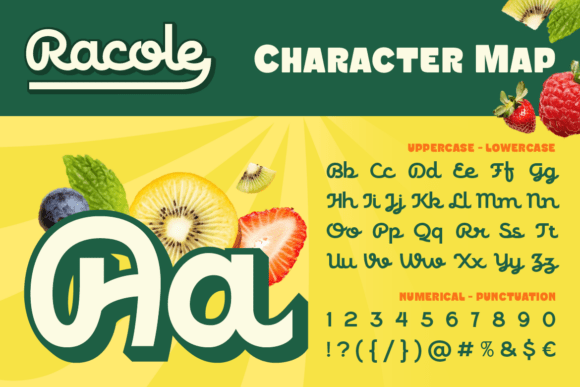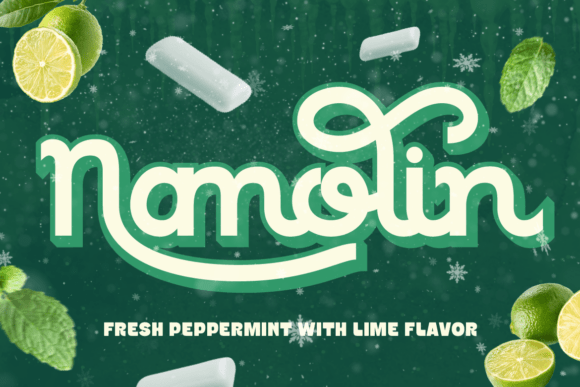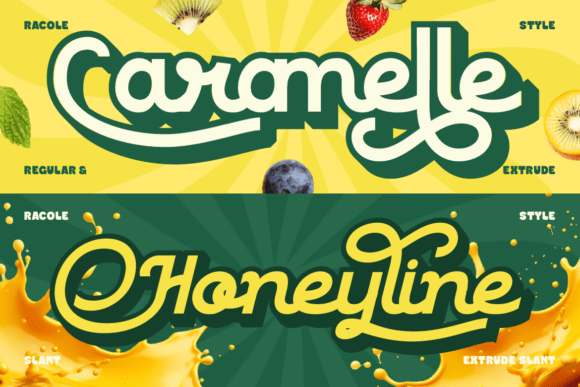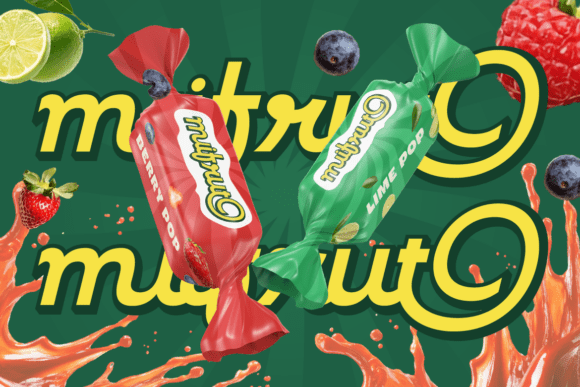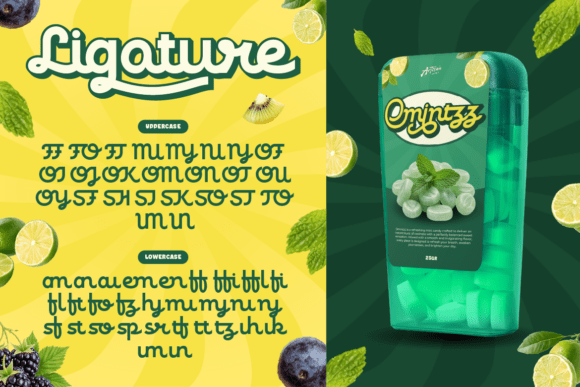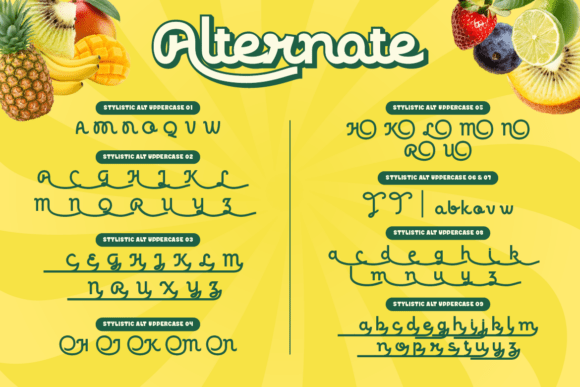
Introduction to Racole Font
Imagine you’re strolling through a vintage candy shop, surrounded by colorful sweets and the sweet scent of fresh fruit. The sound of lively chatter and the clinking of jars fills the air as you browse the aisles, searching for the perfect treat. This is the kind of feeling that the Racole Font embodies – a sense of carefree joy that’s just waiting to be unleashed in your next creative project.
As a designer, you know that finding the right font can make all the difference in bringing your vision to life. And with the Racole Font, you’ll have access to a high-quality, versatile design resource that’s perfect for a wide range of creative projects – from food and beverage branding to social media content and gift cards.
Key Features of Racole Font
- High-quality, professional font design ideal for creative projects and design resources.
- Designed to be highly legible and versatile, suitable for use in various design contexts, from digital to print.
- Includes a comprehensive character set, making it an excellent choice for creative projects and design resources.
Honest Review: Racole Font
I recently stumbled upon the Racole Font, and I must say it’s been a game-changer for my creative projects. The high quality and sleek design make it an excellent addition to any design resource.
One of the standout features of this font is its transparent background, which allows for seamless integration with any image or design element. This makes it a great choice for designers who value versatility and ease of use.
Here are some of the things that work well with the Racole Font:
- ✨ Transparent background for easy integration with other design elements
However, I did encounter a few limitations with this font:
- ⚠️ Limited character set, which may be a concern for designers who need a wide range of characters
- ⚠️ Not suitable for body text, as it can be quite decorative and may be difficult to read at smaller sizes
Overall, I’m impressed with the Racole Font and would highly recommend it for designers who are looking for a high-quality, free design resource. Just be aware of its limitations, and use it judiciously in your creative projects.
Racole Font
Racole Font is a high-quality design resource ideal for creative projects requiring a unique and stylish touch. With its transparent background, this font is perfect for designers looking to add a professional and modern feel to their work.
Tips for Getting the Most Out of Racole Font
For optimal results, use Racole Font in conjunction with other high-quality design resources. Experiment with different font sizes, colors, and arrangements to achieve a unique look.
Racole Font is ideal for a variety of creative projects, including:
- Choose a transparent background to make the quote stand out.
- Use the Racole Font to type out the quote, adjusting the size and color to your liking.
- Add a simple border or frame to give the poster a finished look.
- Pair the Racole Font with a simple line icon or a minimalist graphic to add visual interest.
- Use a high-quality image or texture as a background to add depth to the poster.
- Use the Racole Font to create a clean and modern header section.
- Choose a transparent background to make the text stand out against any background.
Create a high-quality minimalist quote poster using the Racole Font, a free download available for designers. This project is perfect for those who want to showcase their favorite quotes in a simple yet elegant way.
Project 2: Customizable Resume Template
Create a professional and customizable resume template using the Racole Font, a versatile design resource for designers. This project is perfect for those who want to create a unique and effective resume.